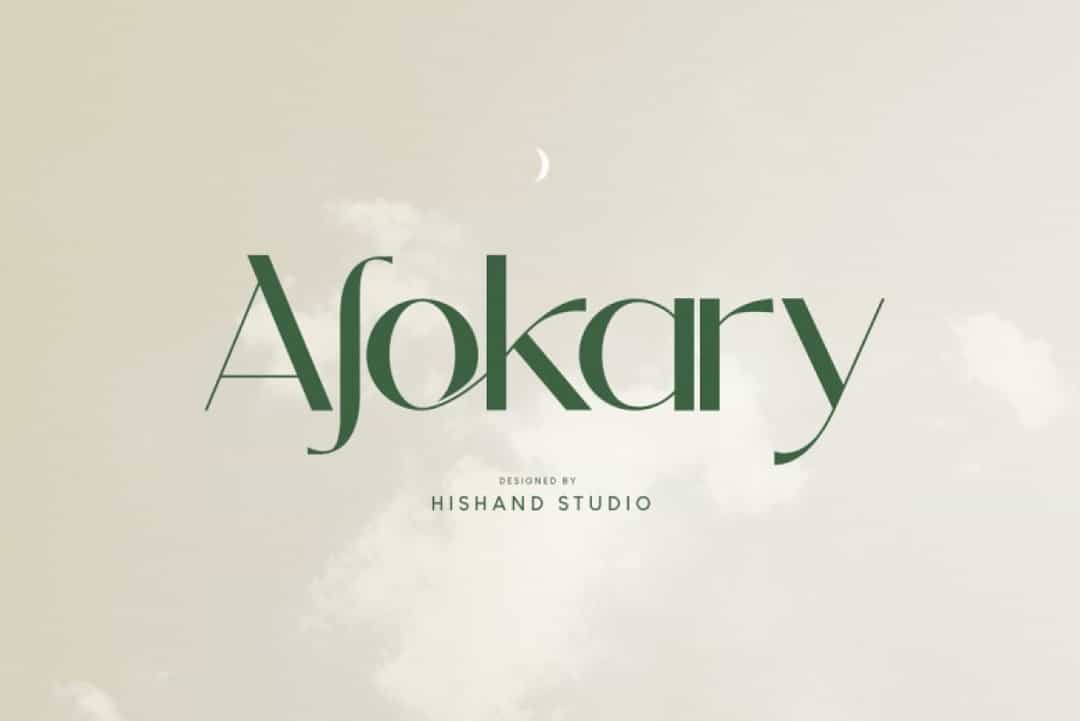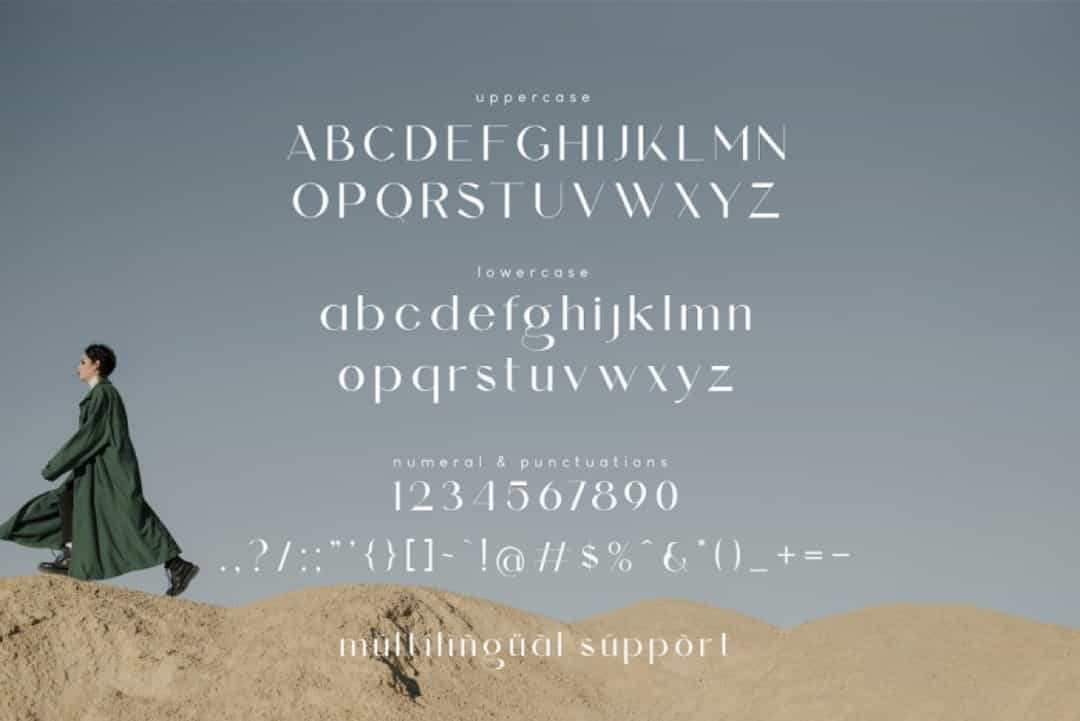
Alokary Font is an elegant sans serif typeface inspired by forest green and beige colors, perfect for branding advertisements, marketing materials, product packaging advertisements social media posts clothing or fashion brand magazine headers magazine covers and many other applications. Additionally, this font comes equipped with.